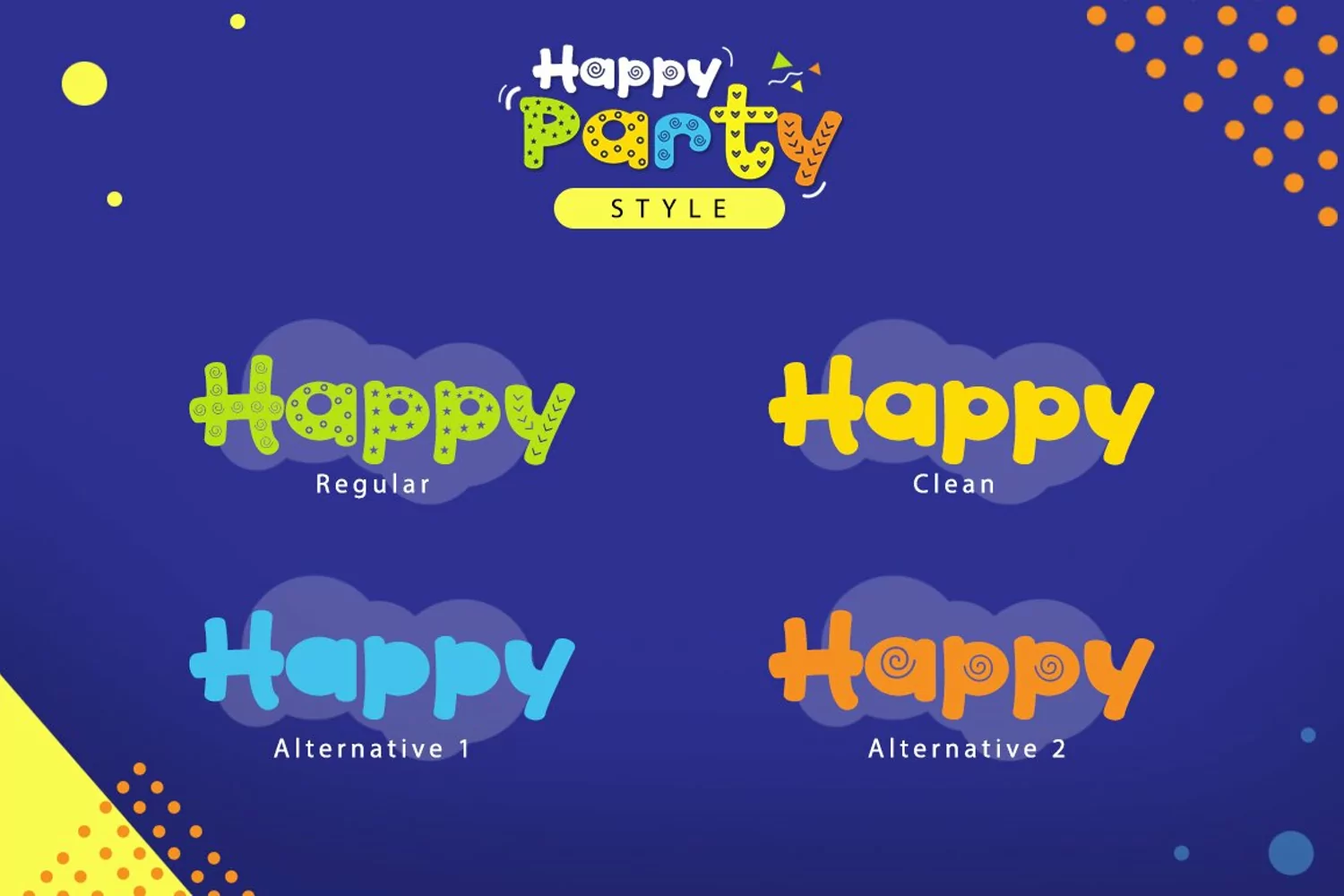
Happy Party 4 font with children and cheerful theme for your fun project. Happy Party font has 4 different styles, regular, clean, alternative 1 & alternative 2. Happy Party font suitable for logo, branding, greeting card, branding, poster and any design that you create.